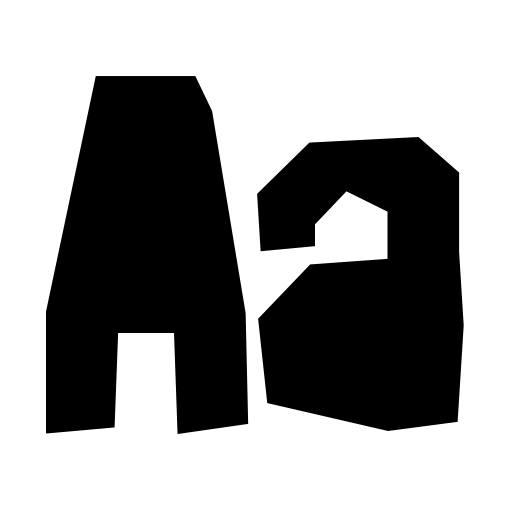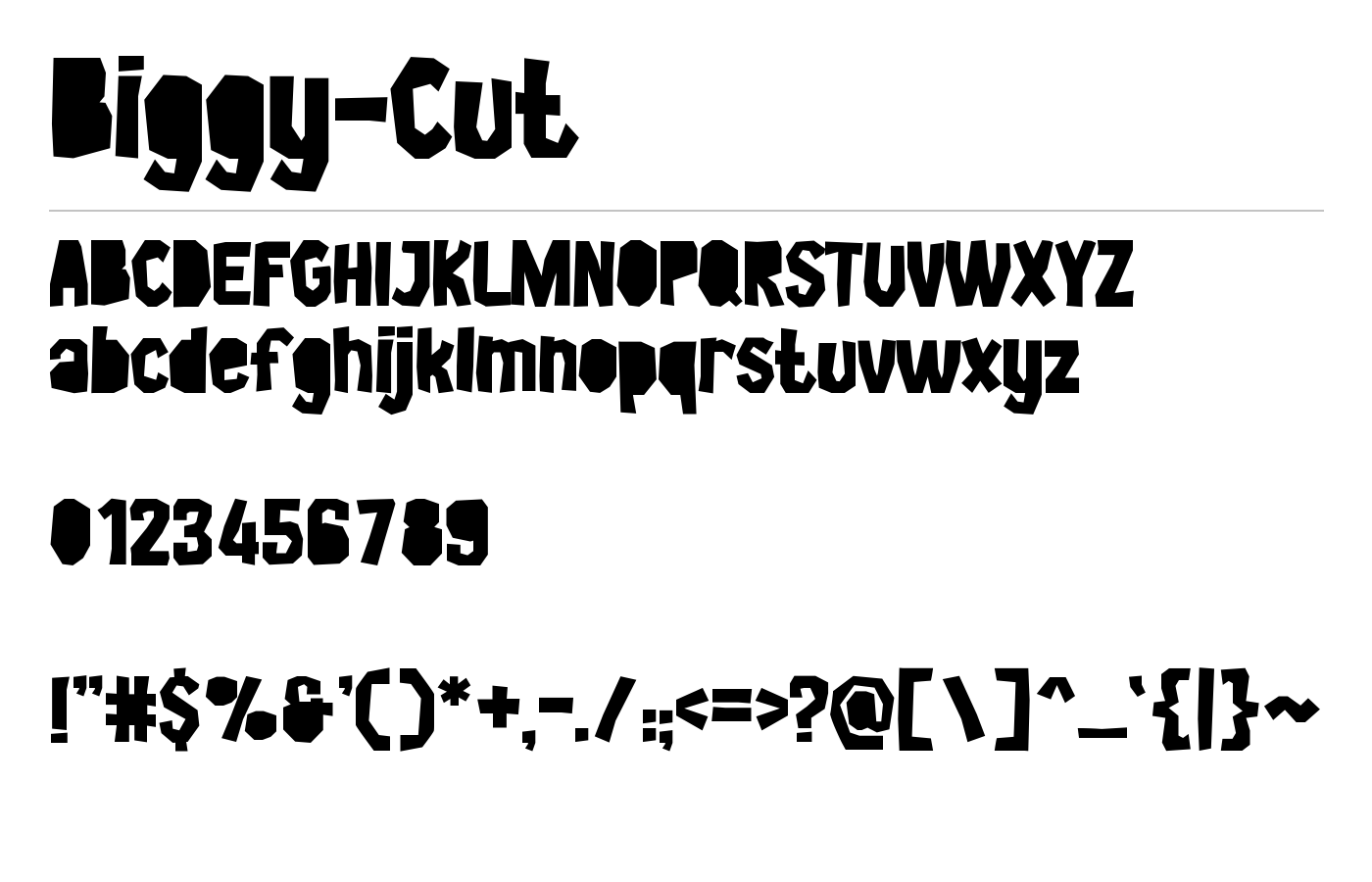
Biggy-Cut is a bold, blocky sans serif font with a rugged, hand-cut appearance that gives it a strong, playful personality. Its uneven edges and chunky letterforms create a striking, informal vibe that works well for eye-catching headlines, posters, and creative branding where a fun, unconventional style is desired. This font’s unique shapes and solid presence make it ideal for projects wanting a bold statement with a handmade, energetic feel.
Biggy-Cut Font
About Biggy-Cut Font